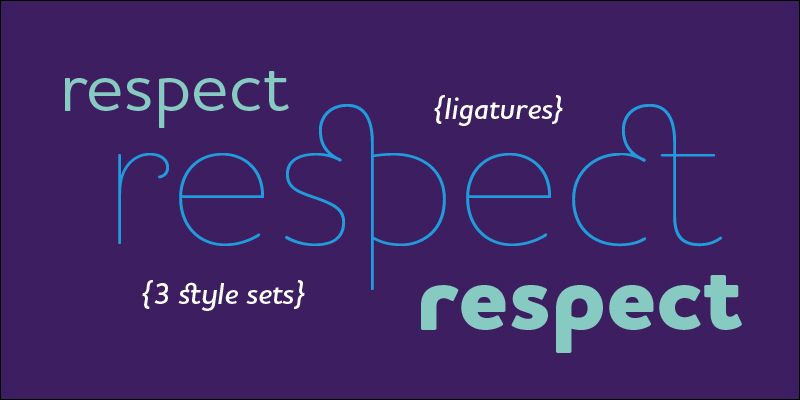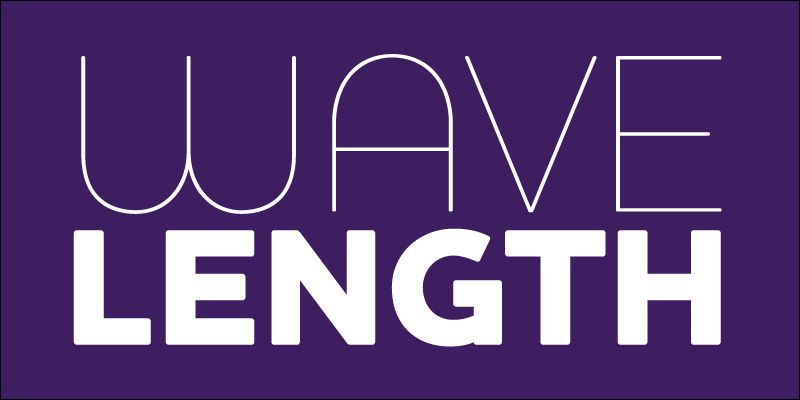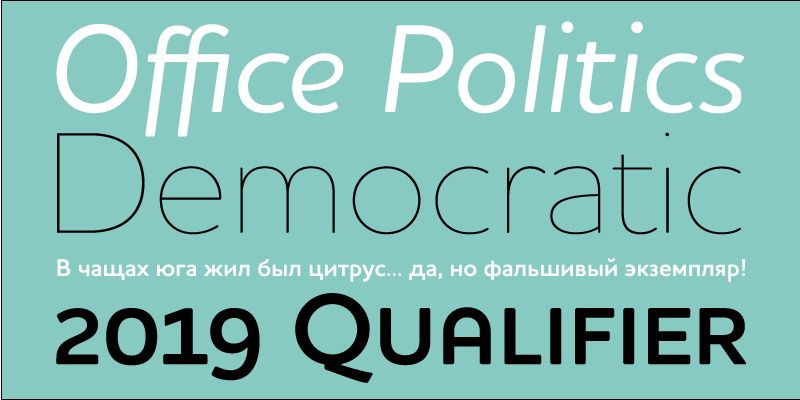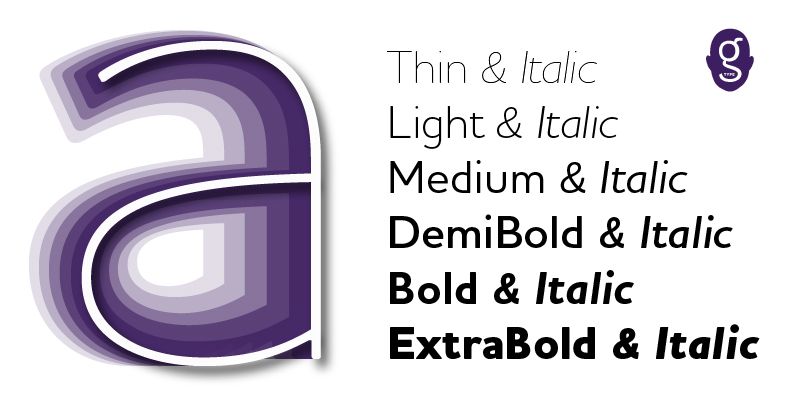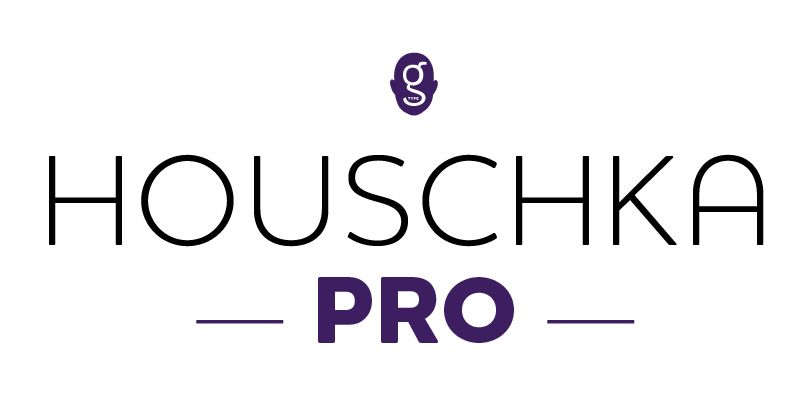
Houschka Pro is a clean and legible modern sans with humanist qualities and a uniquely charming character. Rounded corners and rolling curves give the typeface a soft and friendly appearance.